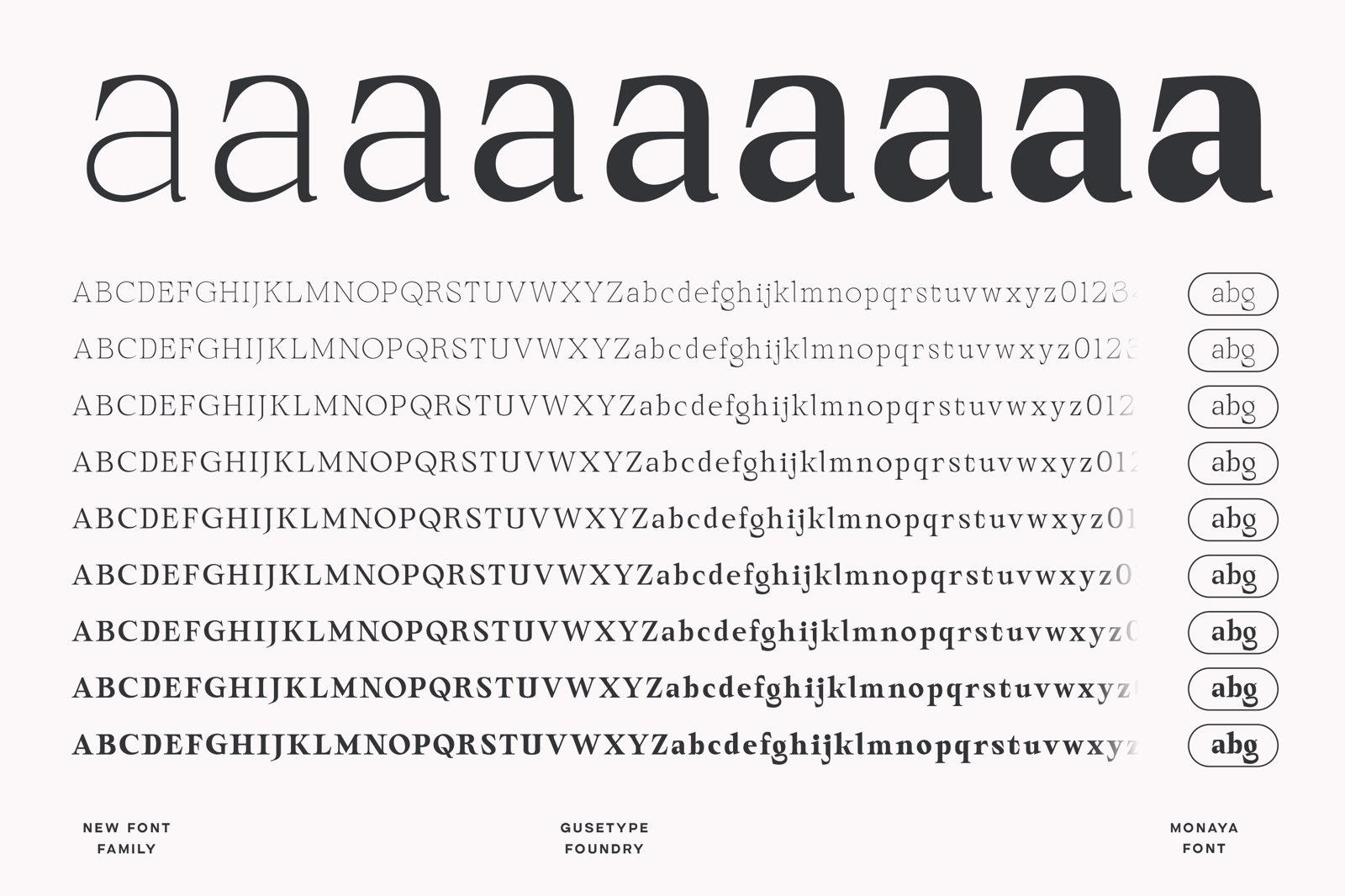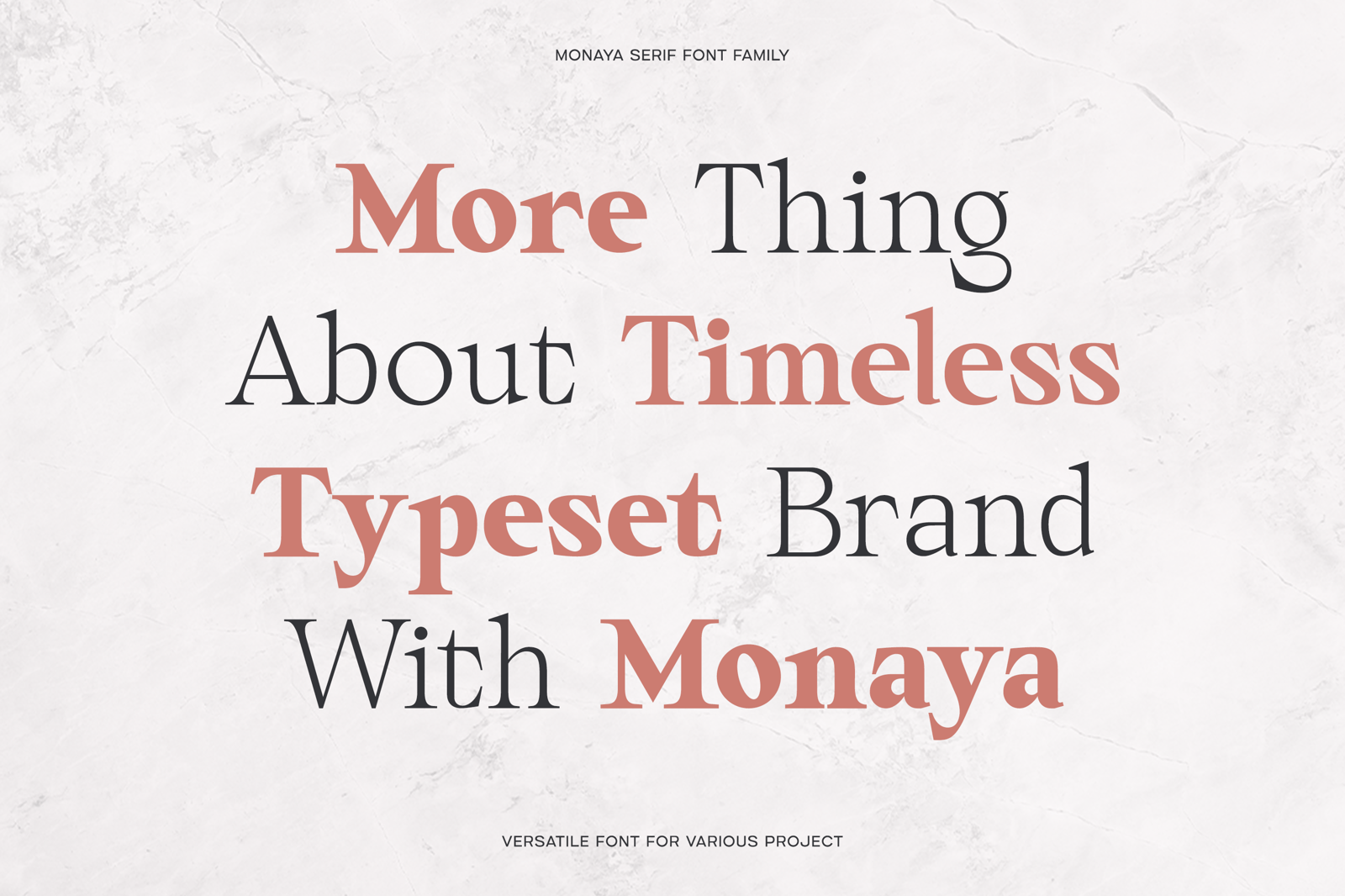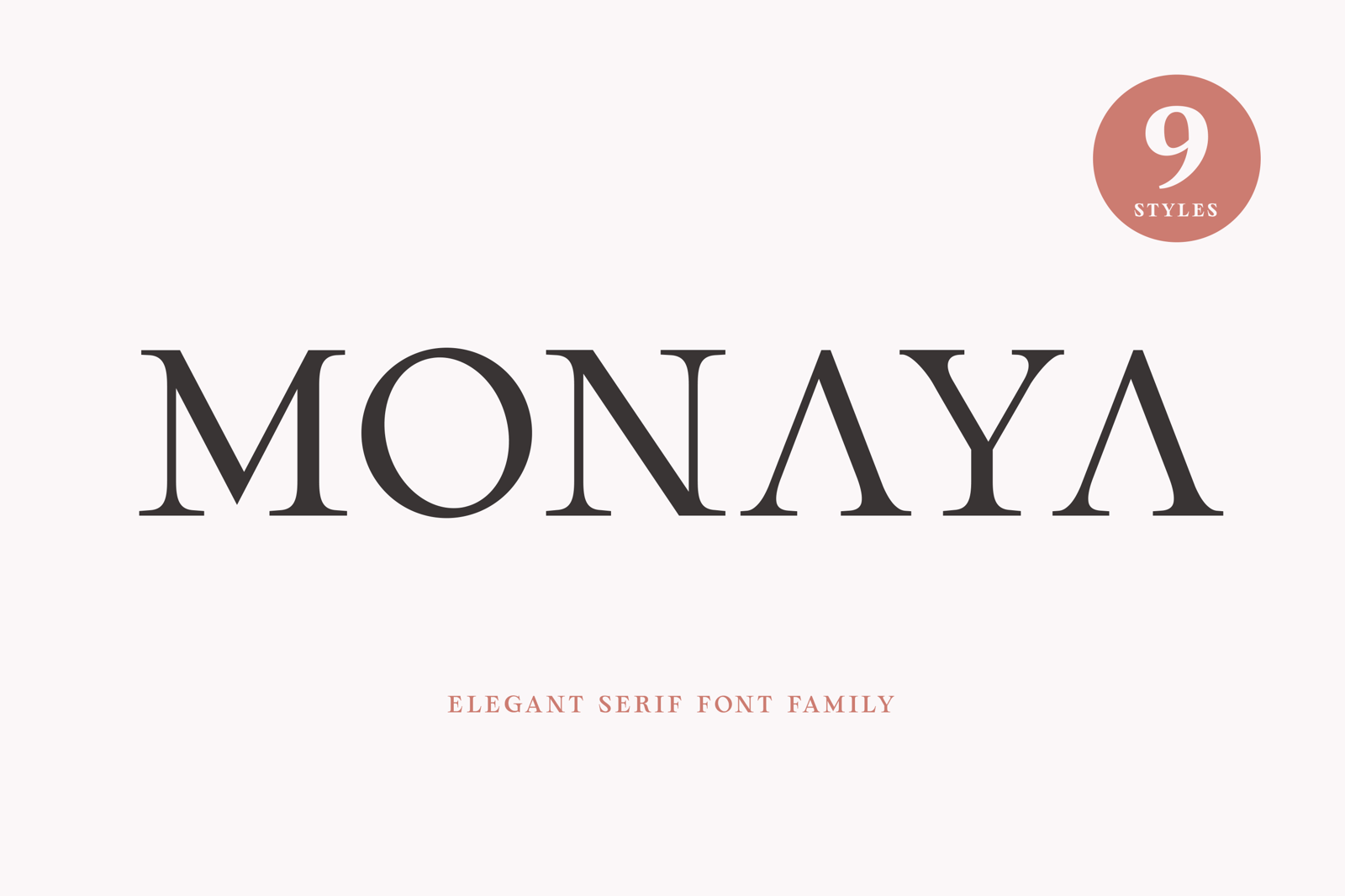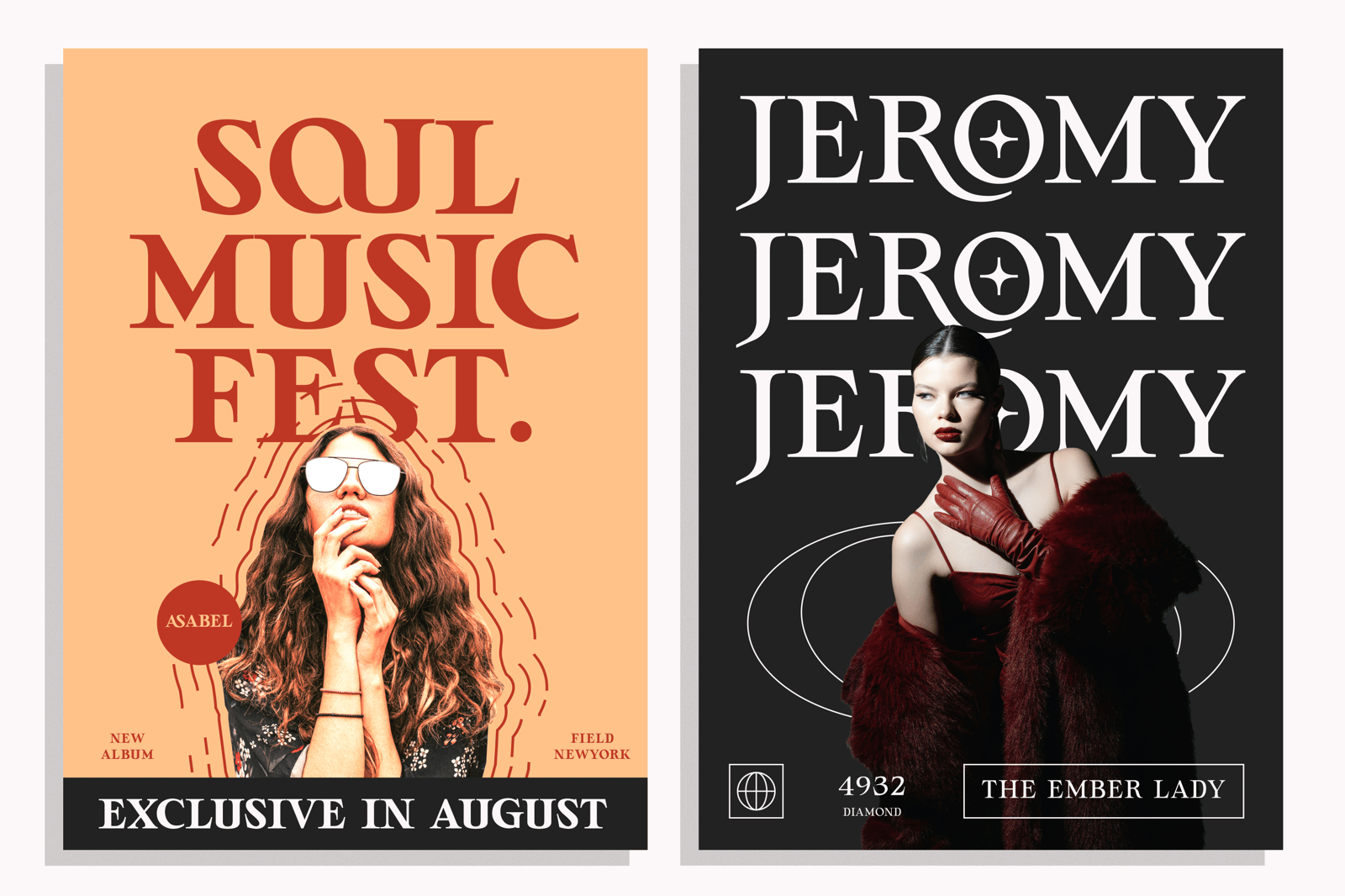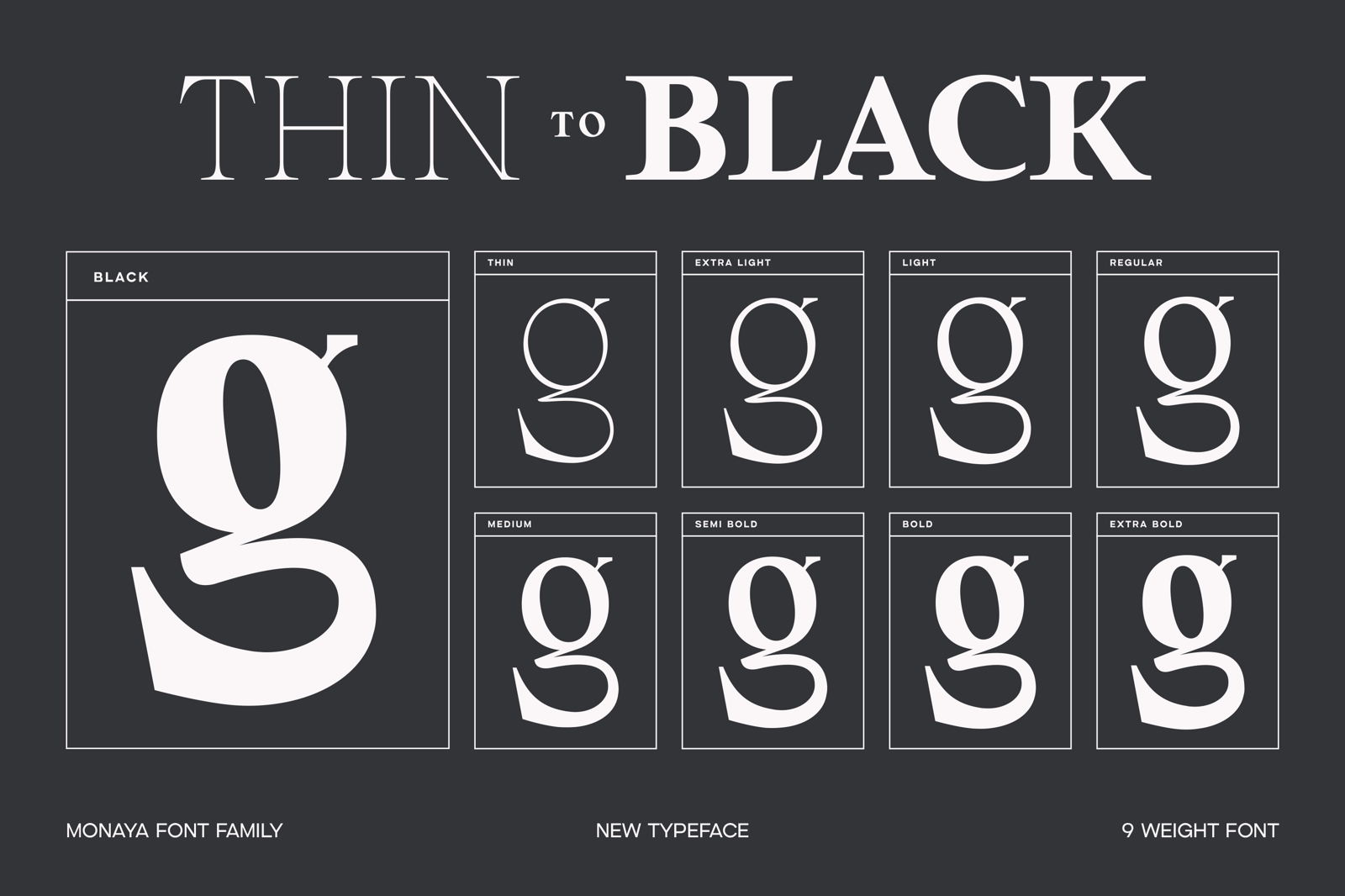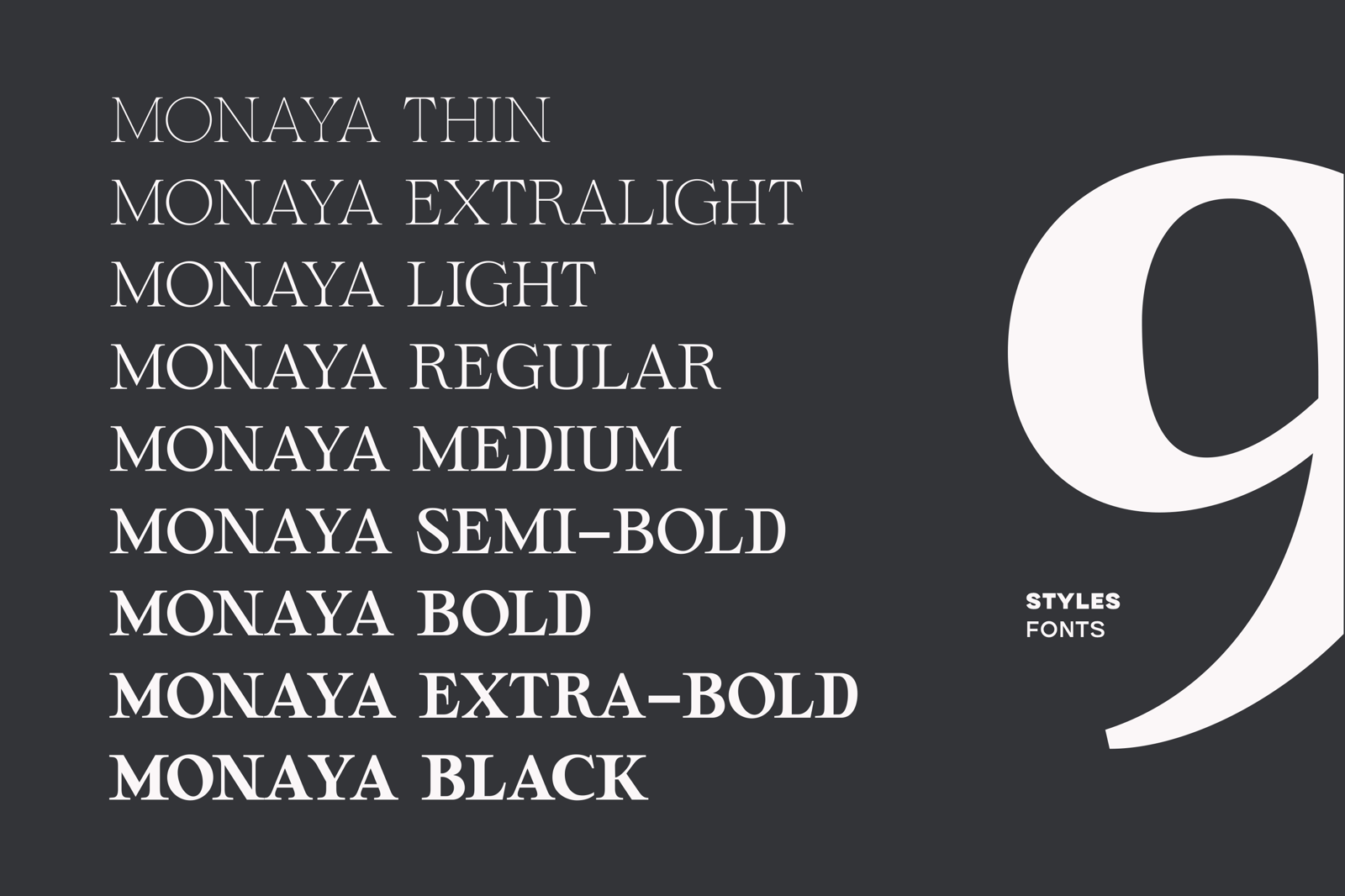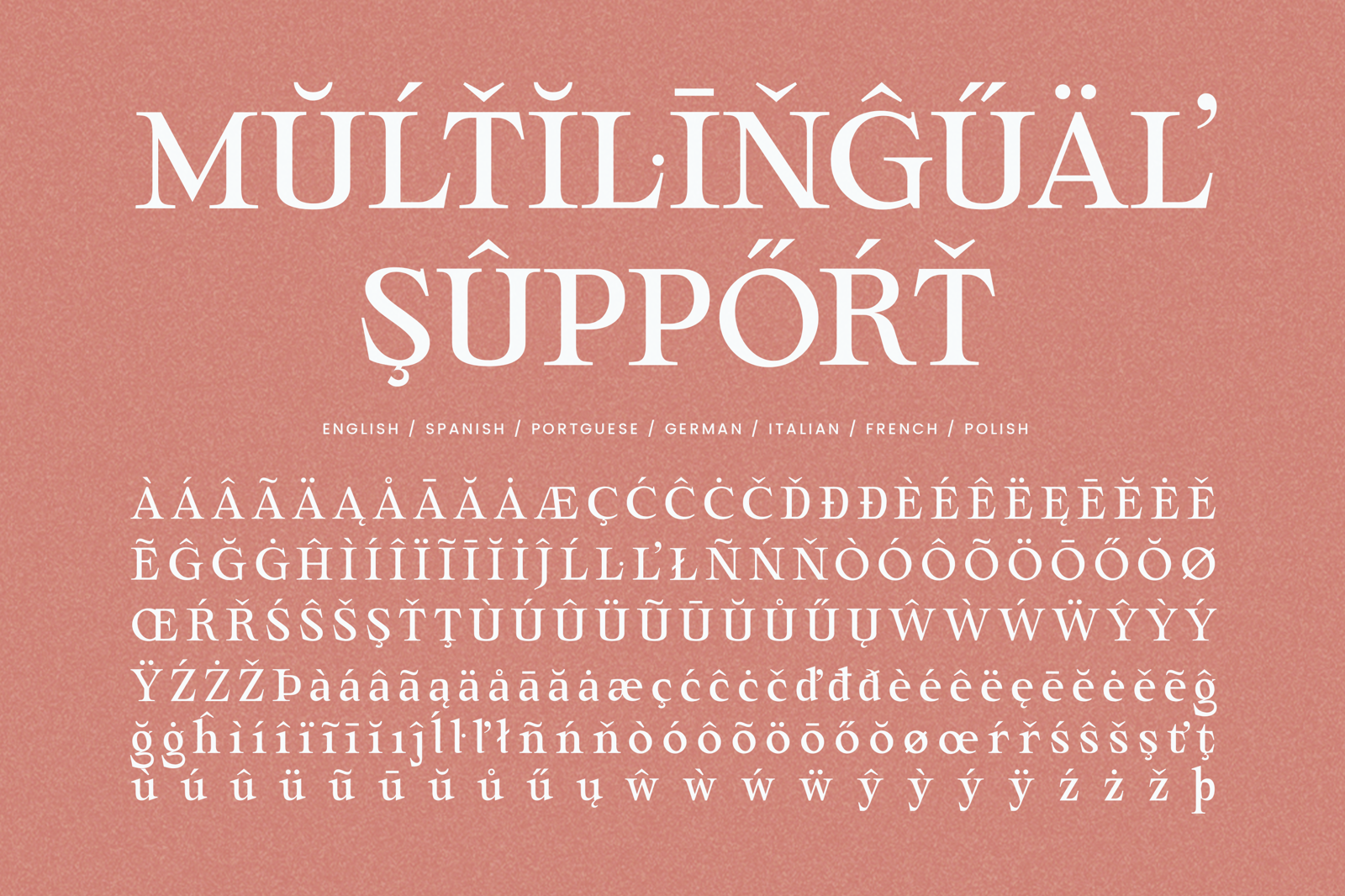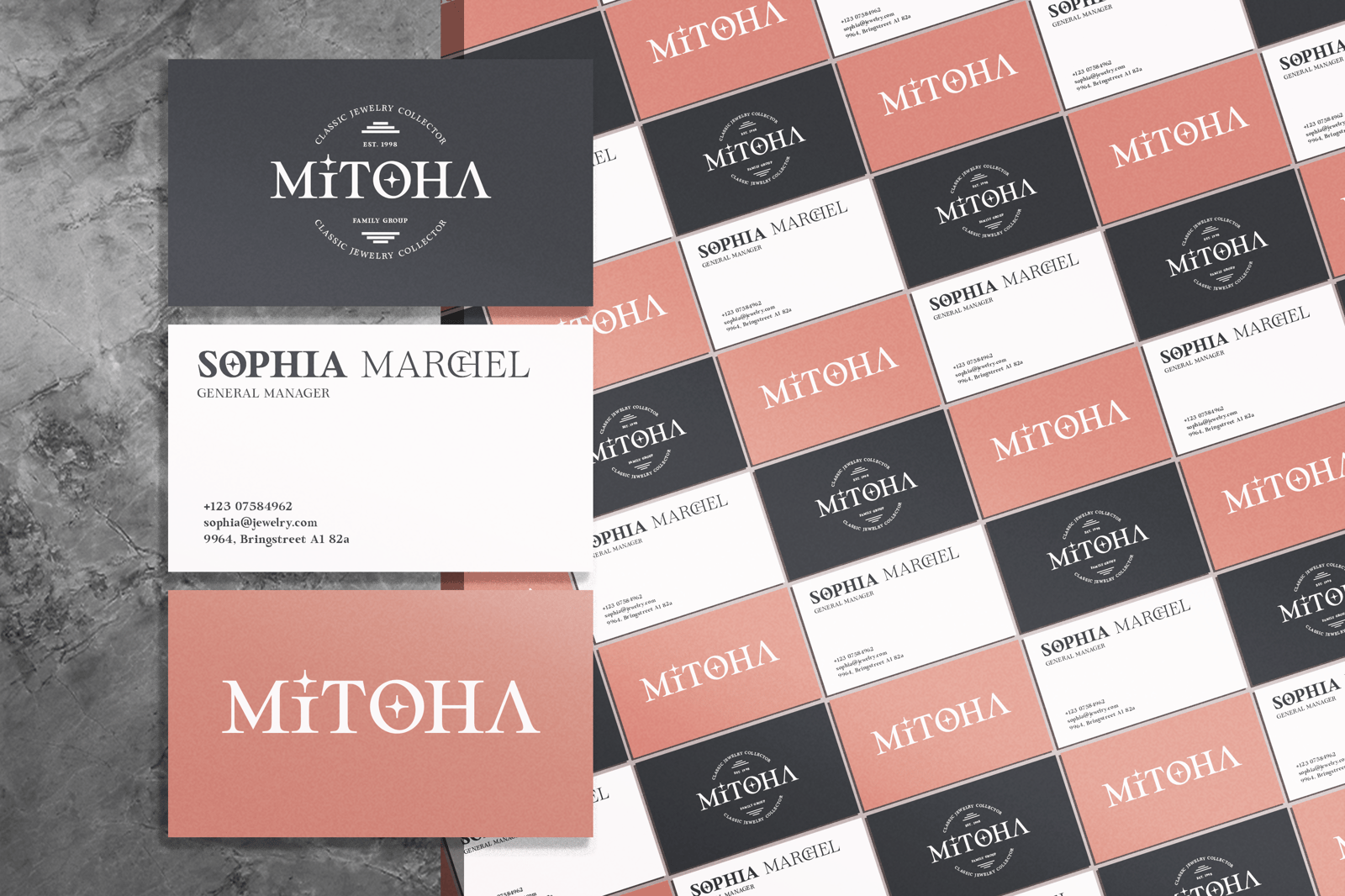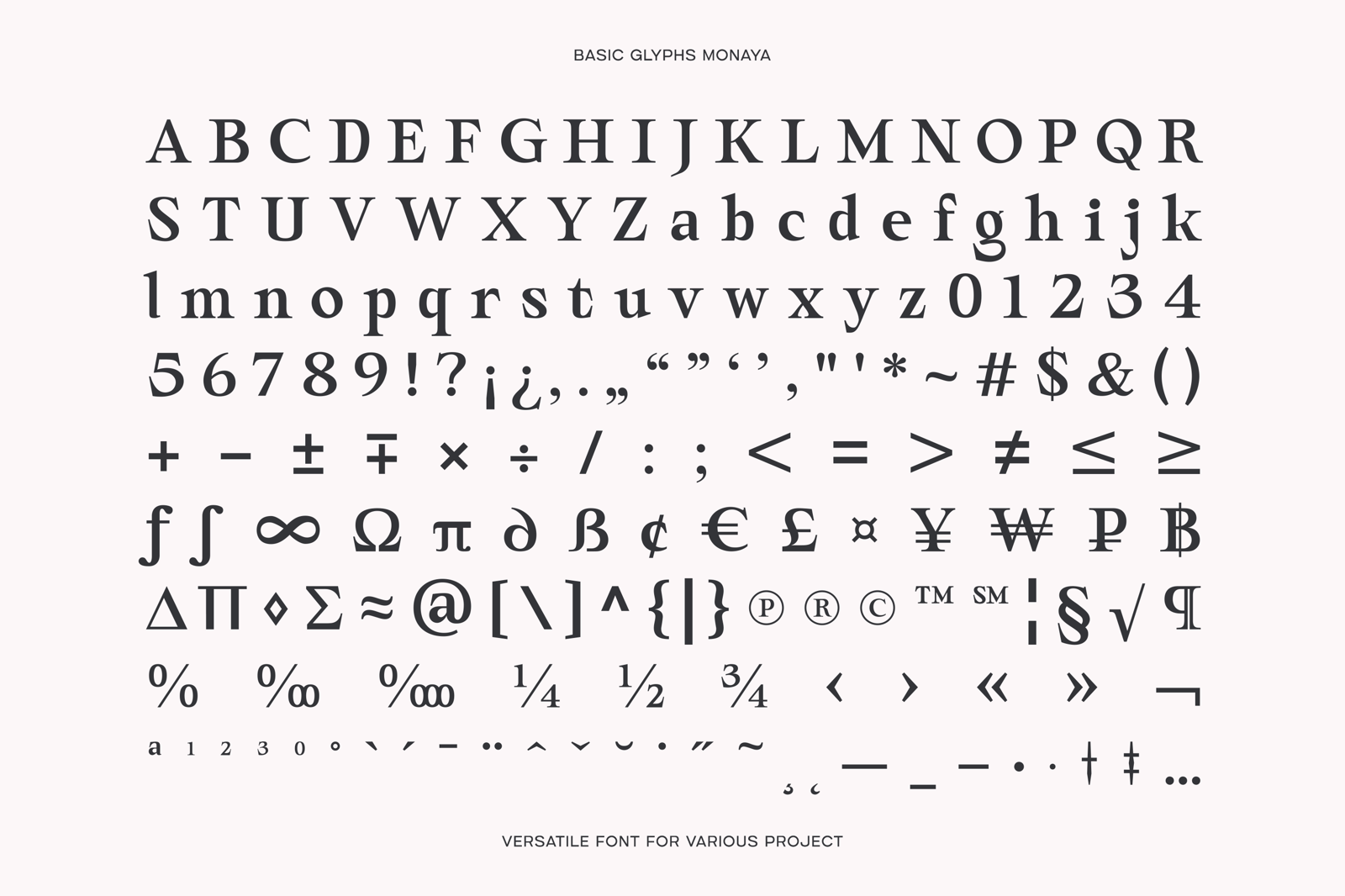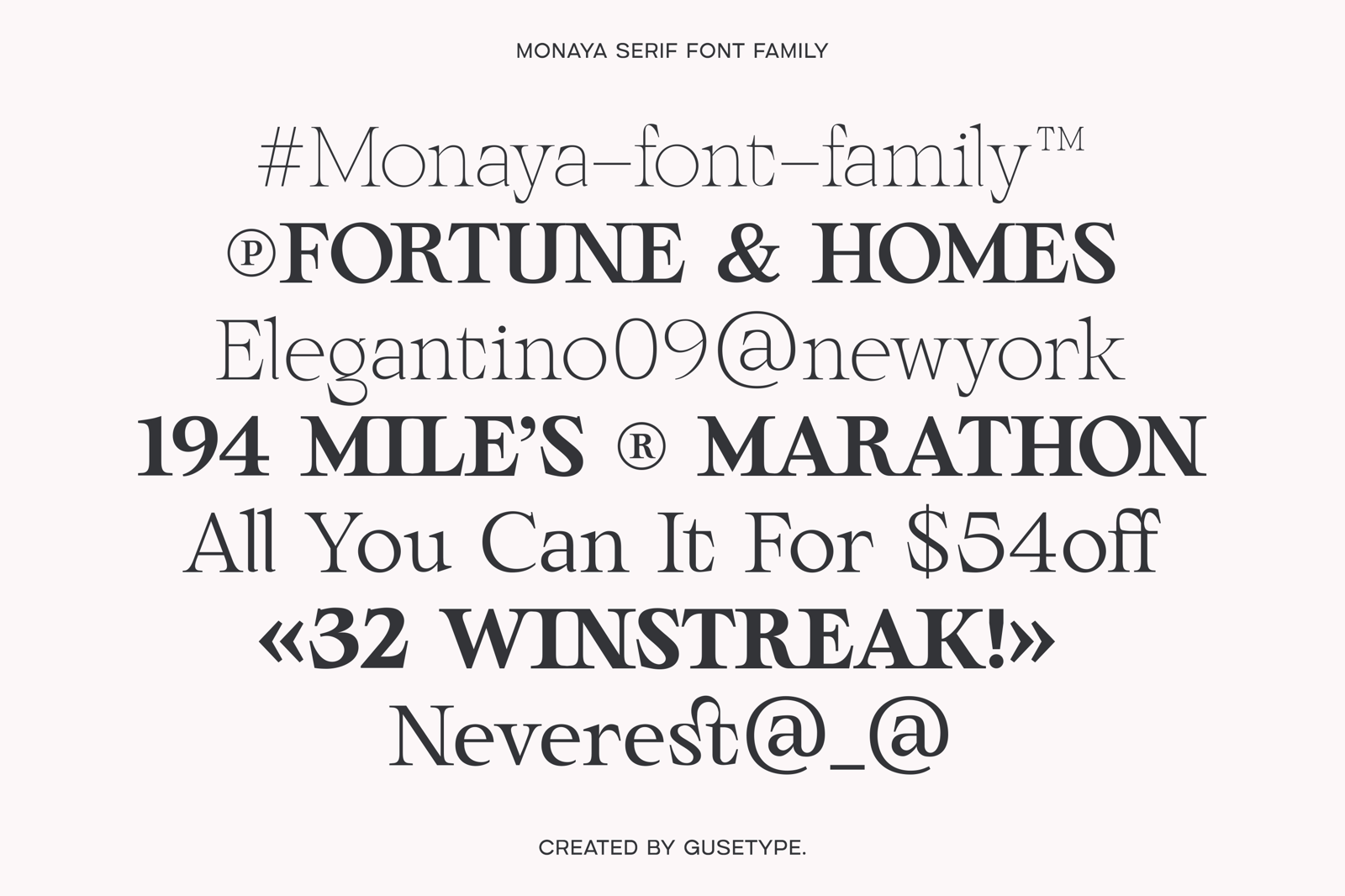
Monaya - Elegant Serif Font Family
Monaya is an elegant serif font that comes in 9 styles.
Monaya embodies timeless luxury with its classic serif style. Every stroke exudes refinement, blending elegance with a touch of grandeur. Perfect for enhancing any project such as posters, magazines, banners, branding, editorial design, and premium packaging, and more. Monaya has features such as ligatures and alternate glyphs, multi-language support, and punctuation mark.